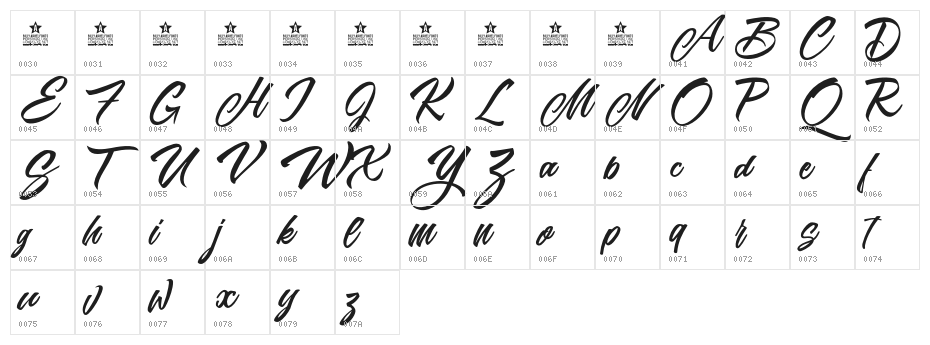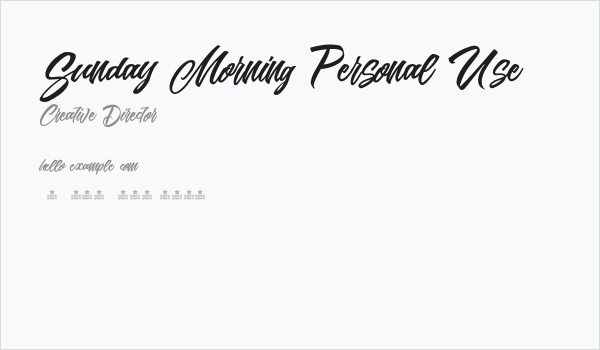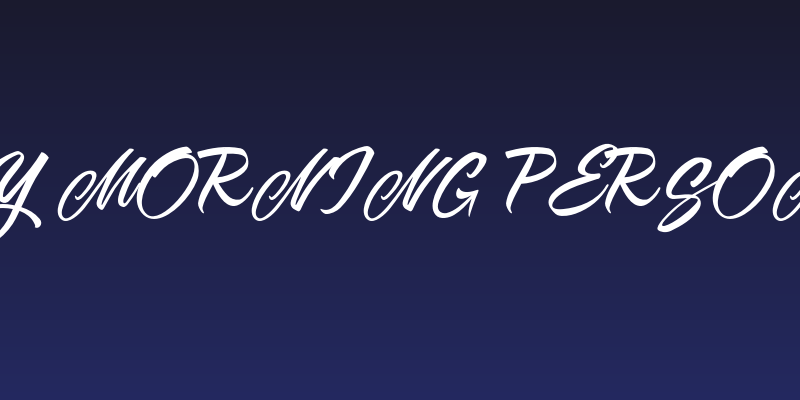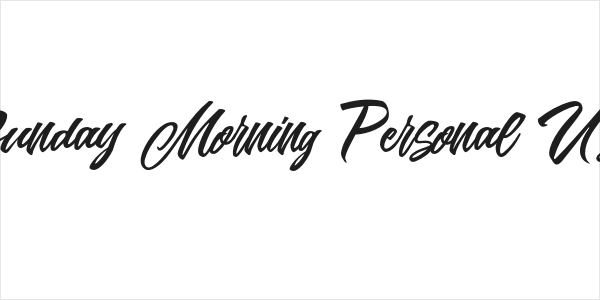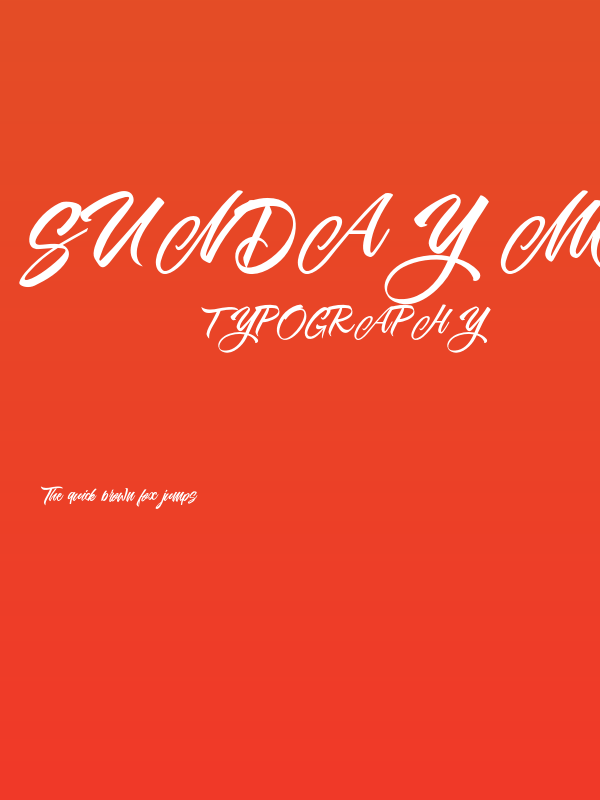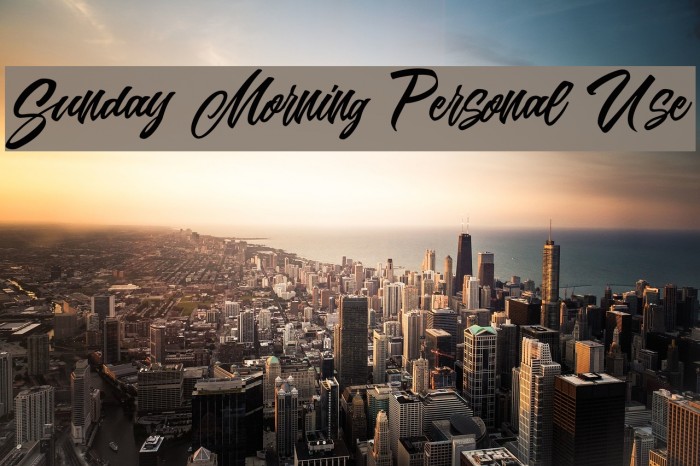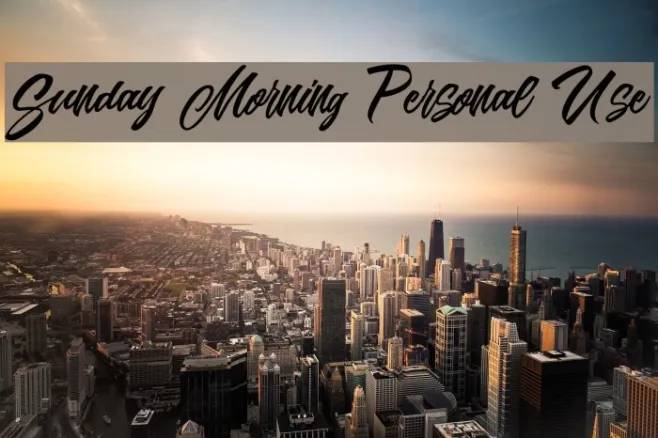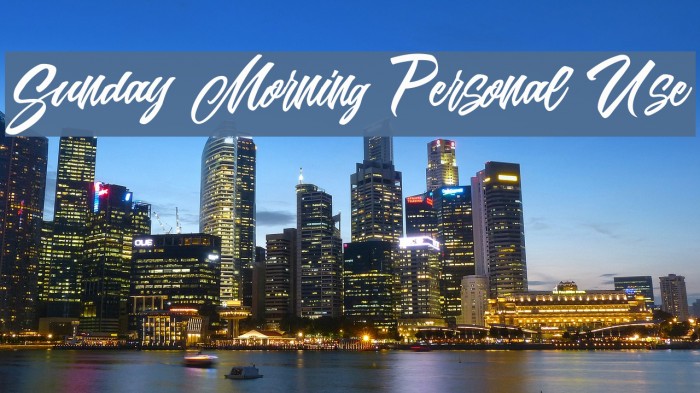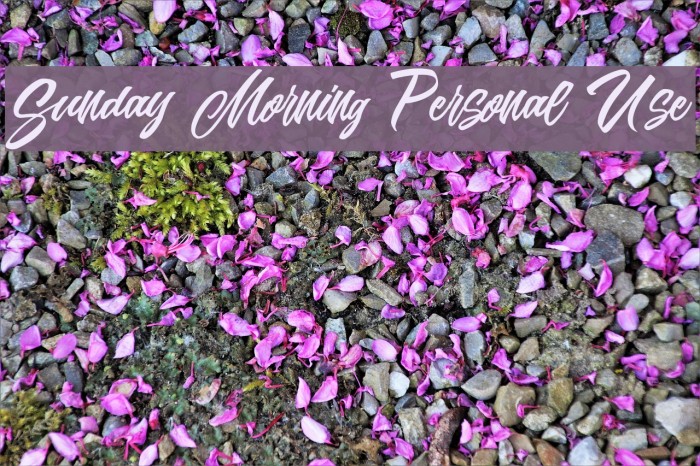
Sunday Morning Personal Use Font
Sunday Morning Personal Use Description
This font features a bold and expressive script style, characterized by its flowing, cursive letterforms. The uppercase letters are elegantly connected, while the lowercase letters maintain a consistent, smooth flow. The strokes are thick and dynamic, giving the font a strong presence. The overall design is reminiscent of handwritten calligraphy, with a modern twist that makes it suitable for a variety of creative applications. The characters are slightly slanted, adding to the sense of movement and fluidity. This font is ideal for projects that require a personal touch or a sense of elegance and sophistication.